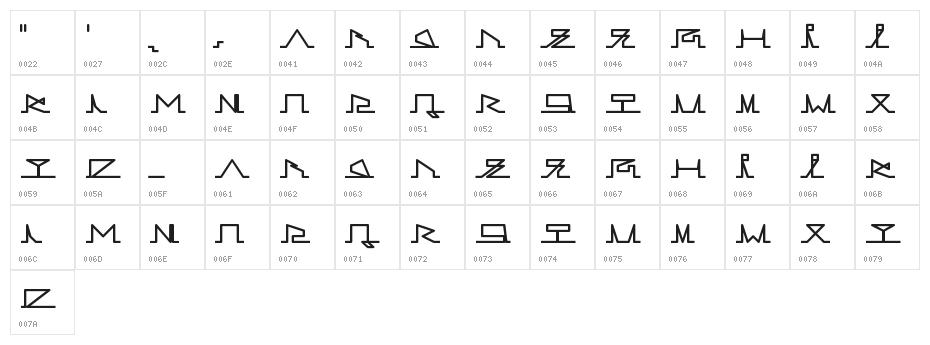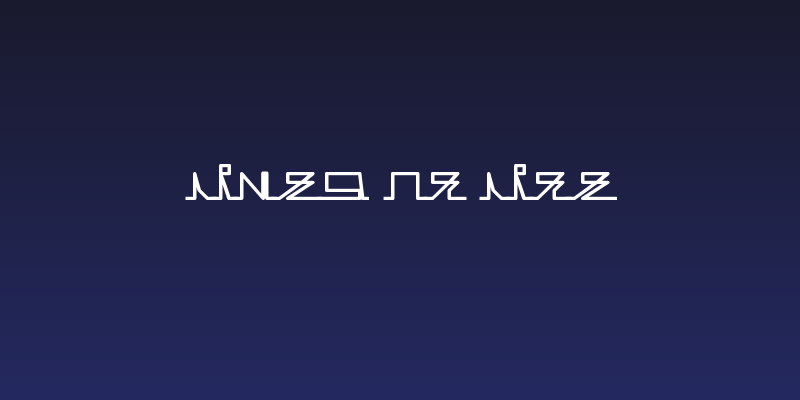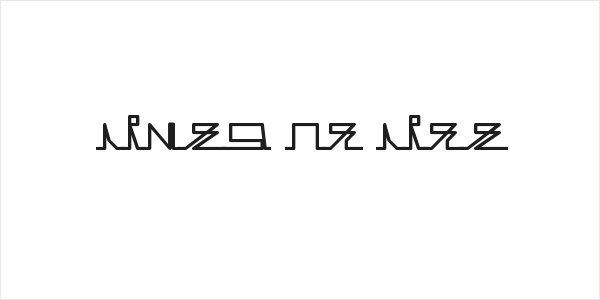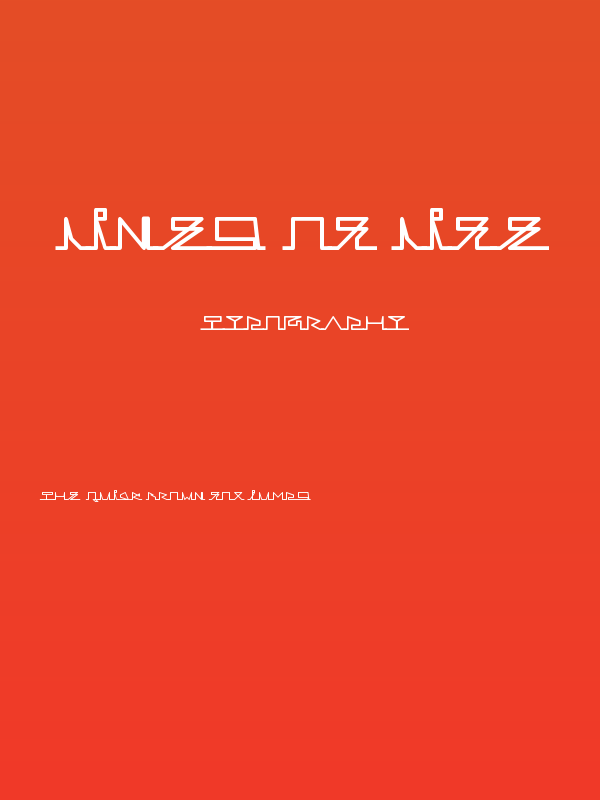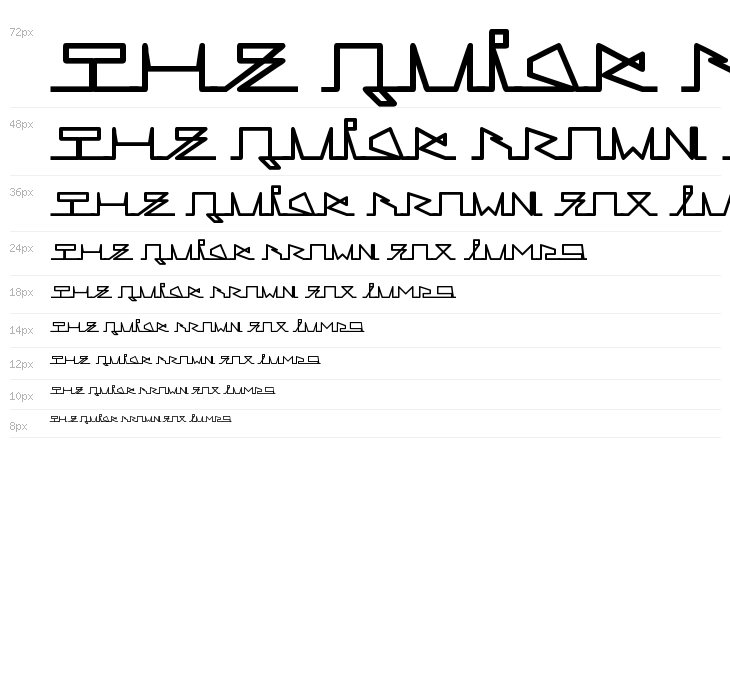
Lines of life Font
Lines of life Description
This font features a highly geometric and angular design, characterized by sharp lines and a futuristic aesthetic. Each character is constructed with a series of straight edges and angles, creating a sense of movement and modernity. The uppercase and lowercase letters share a similar structure, maintaining consistency across the alphabet. The numerals and special characters follow the same design principles, ensuring uniformity. The font's unique style makes it stand out, with its bold and striking appearance suitable for creative and avant-garde projects.
| Proposed Projects | Ideal for sci-fi themed projects, modern art installations, digital media, and innovative branding. |